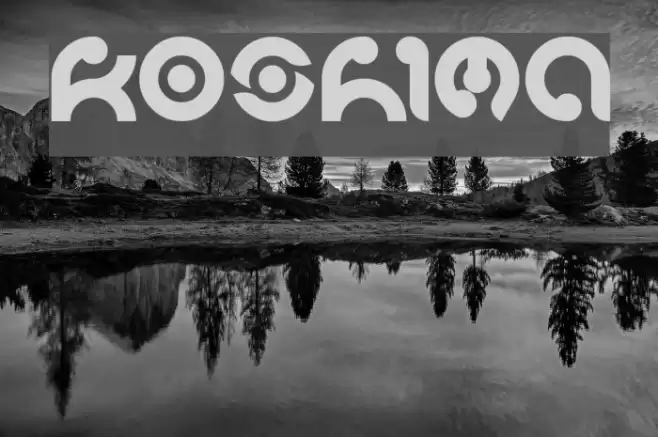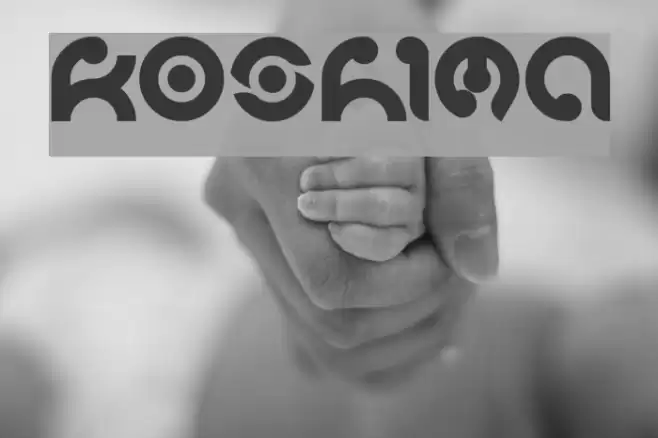
koshima Font
koshima Description
This font features a highly stylized and decorative design, characterized by its bold and thick strokes that create a strong visual impact. The letters are crafted with unique, rounded shapes and intricate curves, giving it a futuristic and artistic appearance. The font's design is consistent across both uppercase and lowercase letters, maintaining a cohesive look. Its distinct style makes it stand out, with each character having a playful yet structured form. The font's geometric elements and symmetrical balance contribute to its modern and avant-garde aesthetic, making it suitable for creative and eye-catching designs.
A bold, decorative font with rounded, geometric shapes and a futuristic style from Uncategorized fonts.
- Proposed Projects: Ideal for branding, logos, posters, and any creative projects that require a modern and artistic touch.